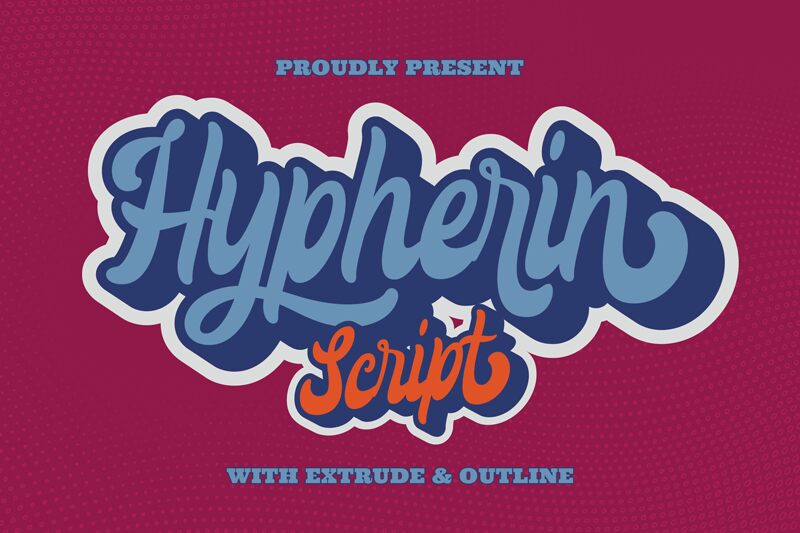
Hypherin, the latest creation from Ahwe Project, is a smooth brush font with a semi-bold weight and condensed width. Its retro script style brings a touch of nostalgia to any project. This versatile font is ideal for branding materials, logos, product packaging, social media graphics and even website design. Whether you're looking to create a vintage-inspired look or add some personality to your designs, Hypherin has got you covered. With its bold strokes and fluid curves, this font will make your text pop and stand out from the crowd while conveying a sense of sophistication and charm.
Hypherin